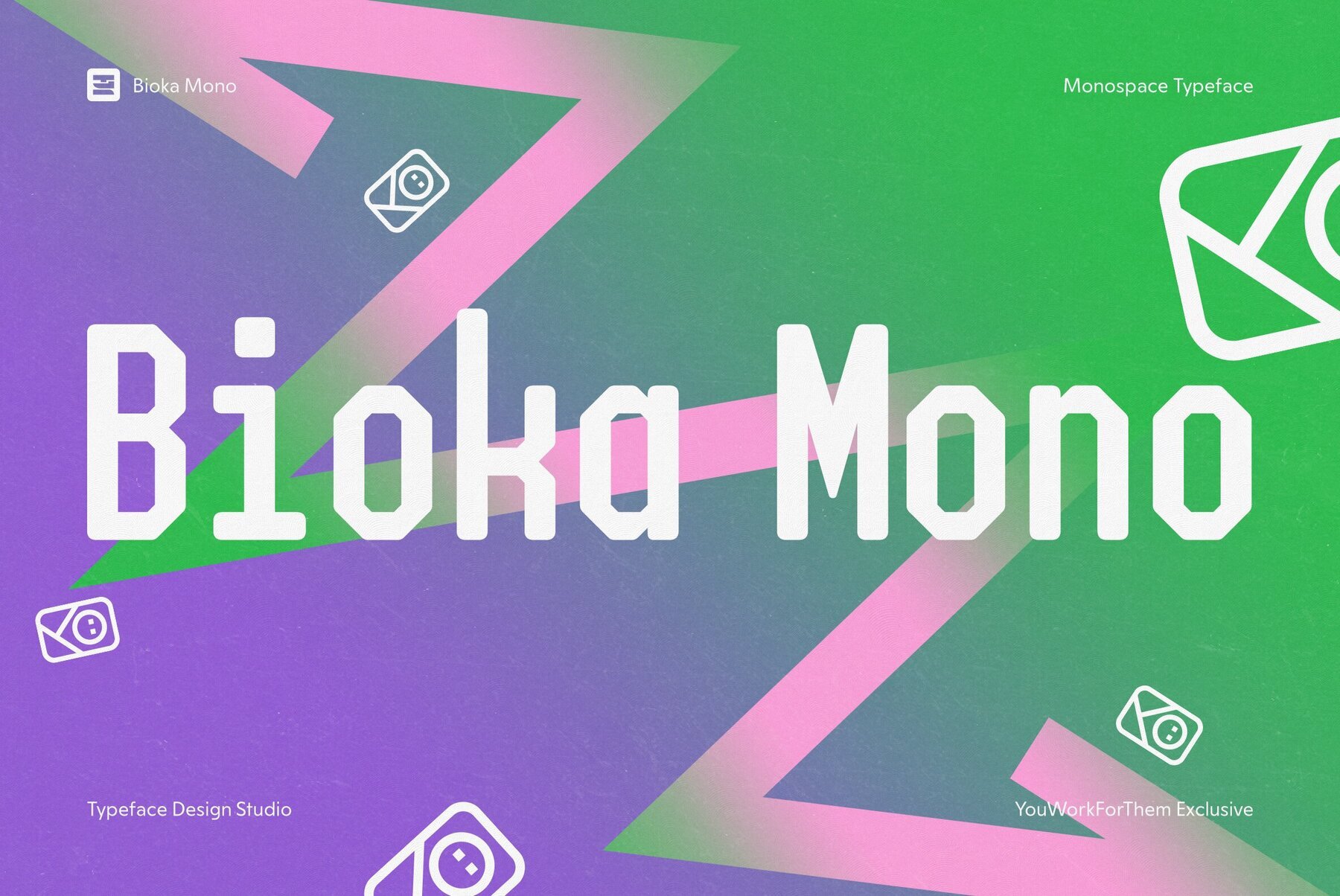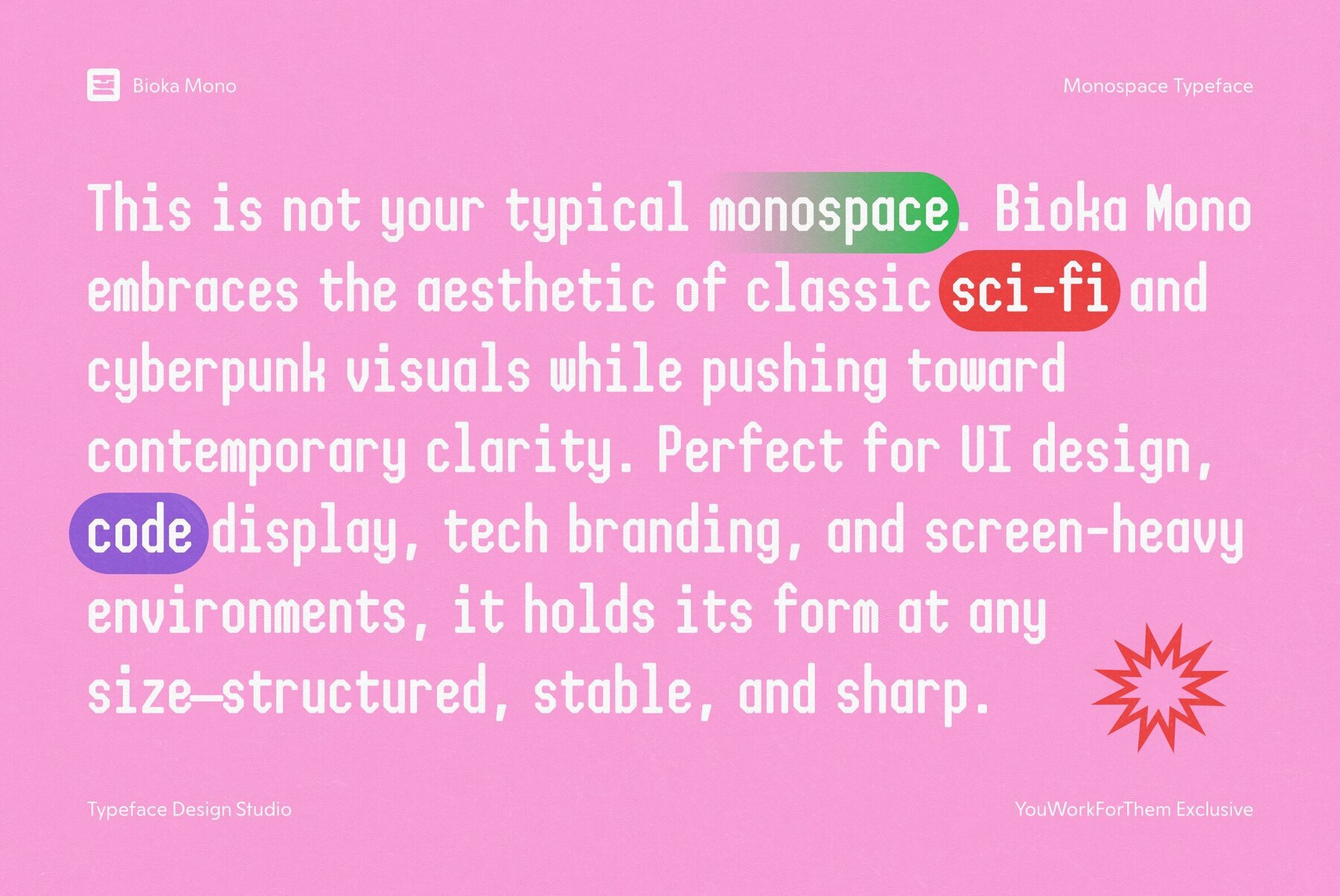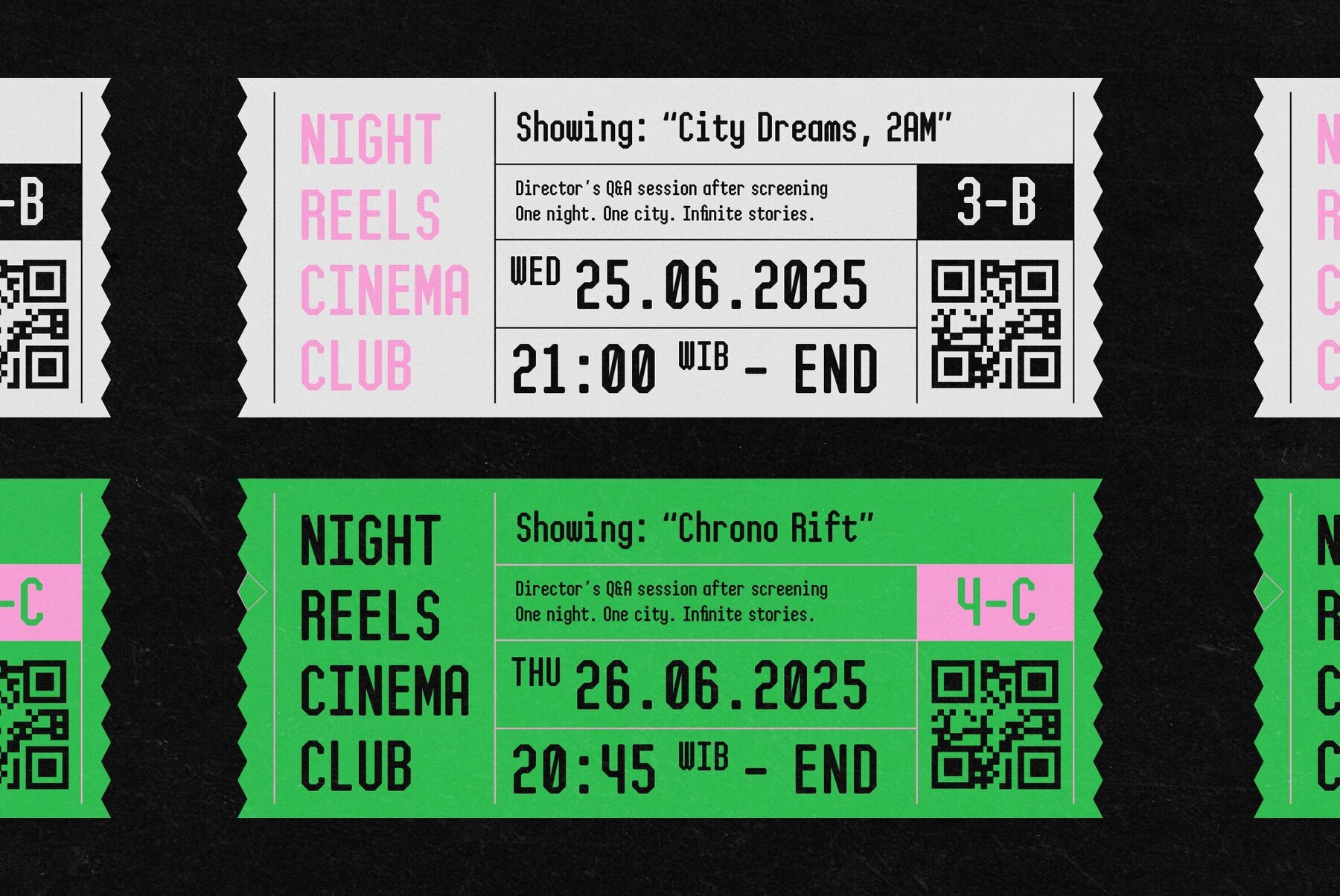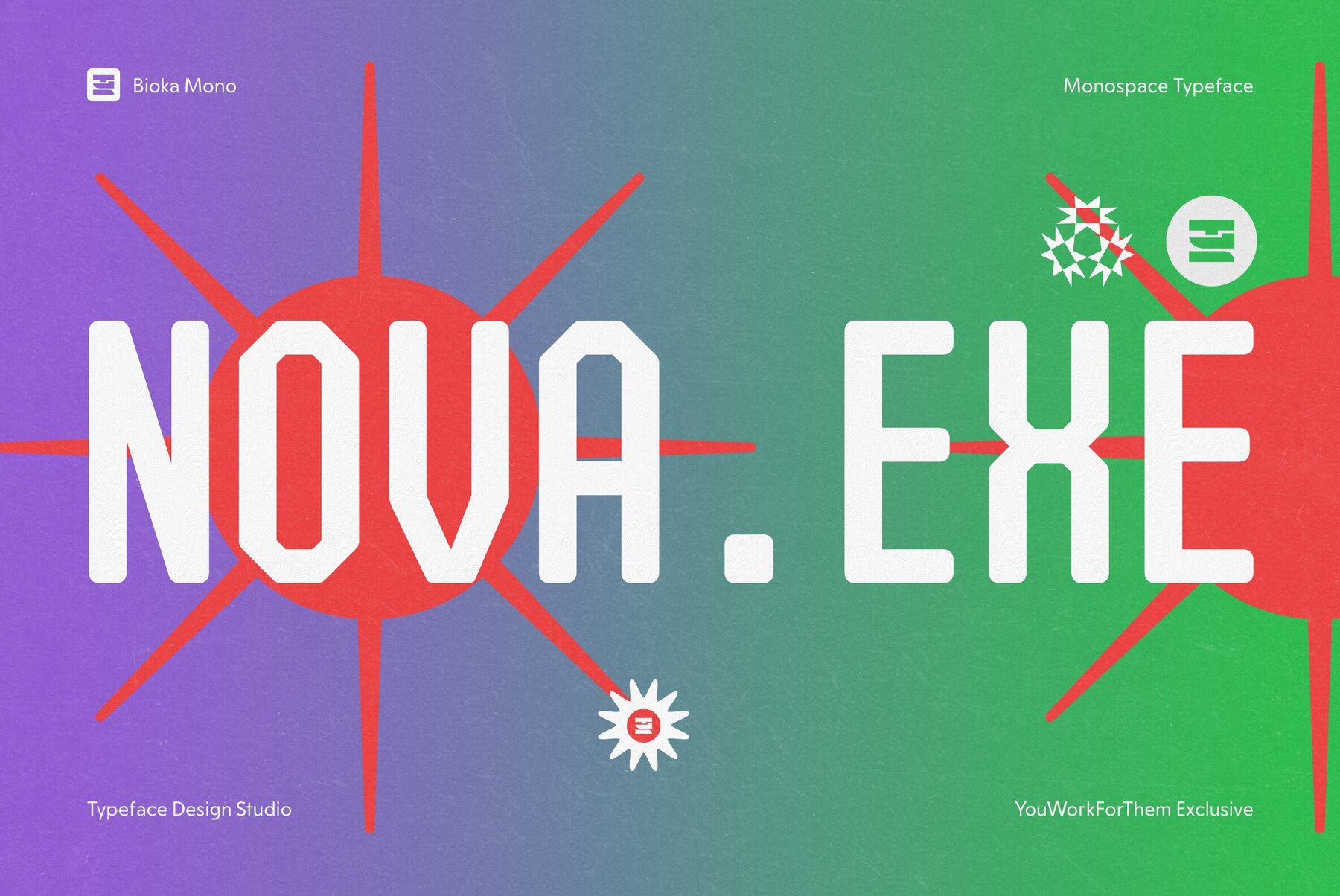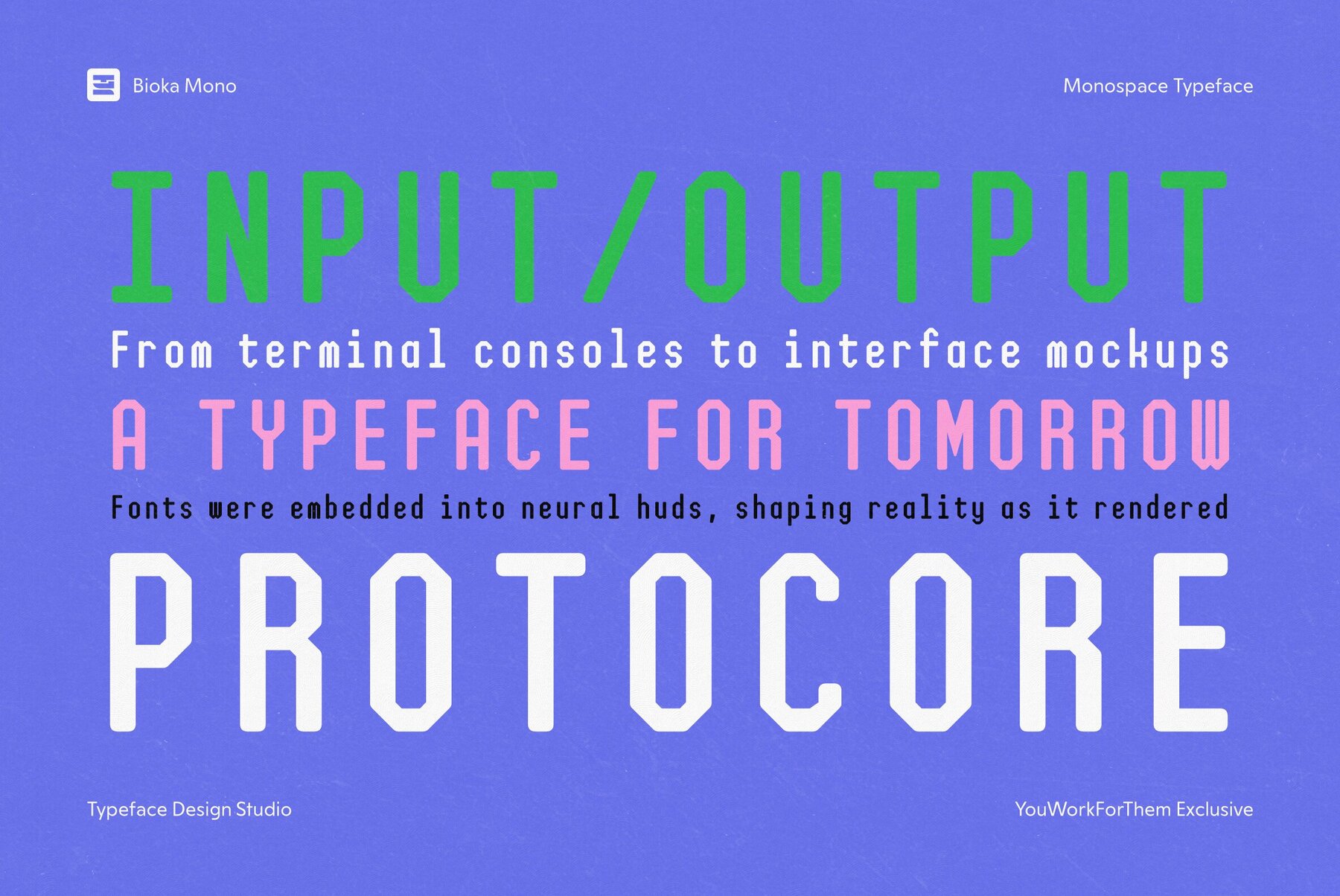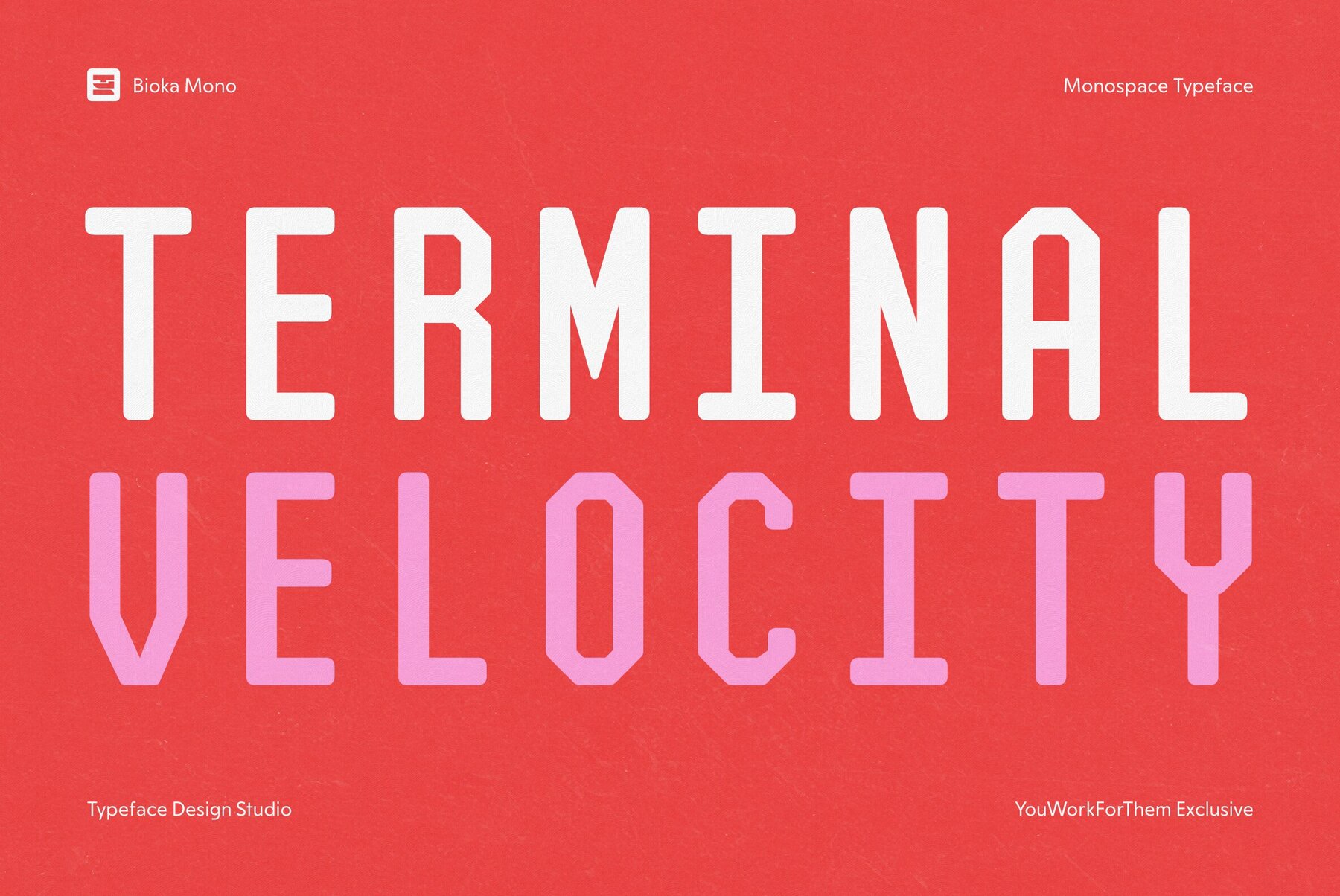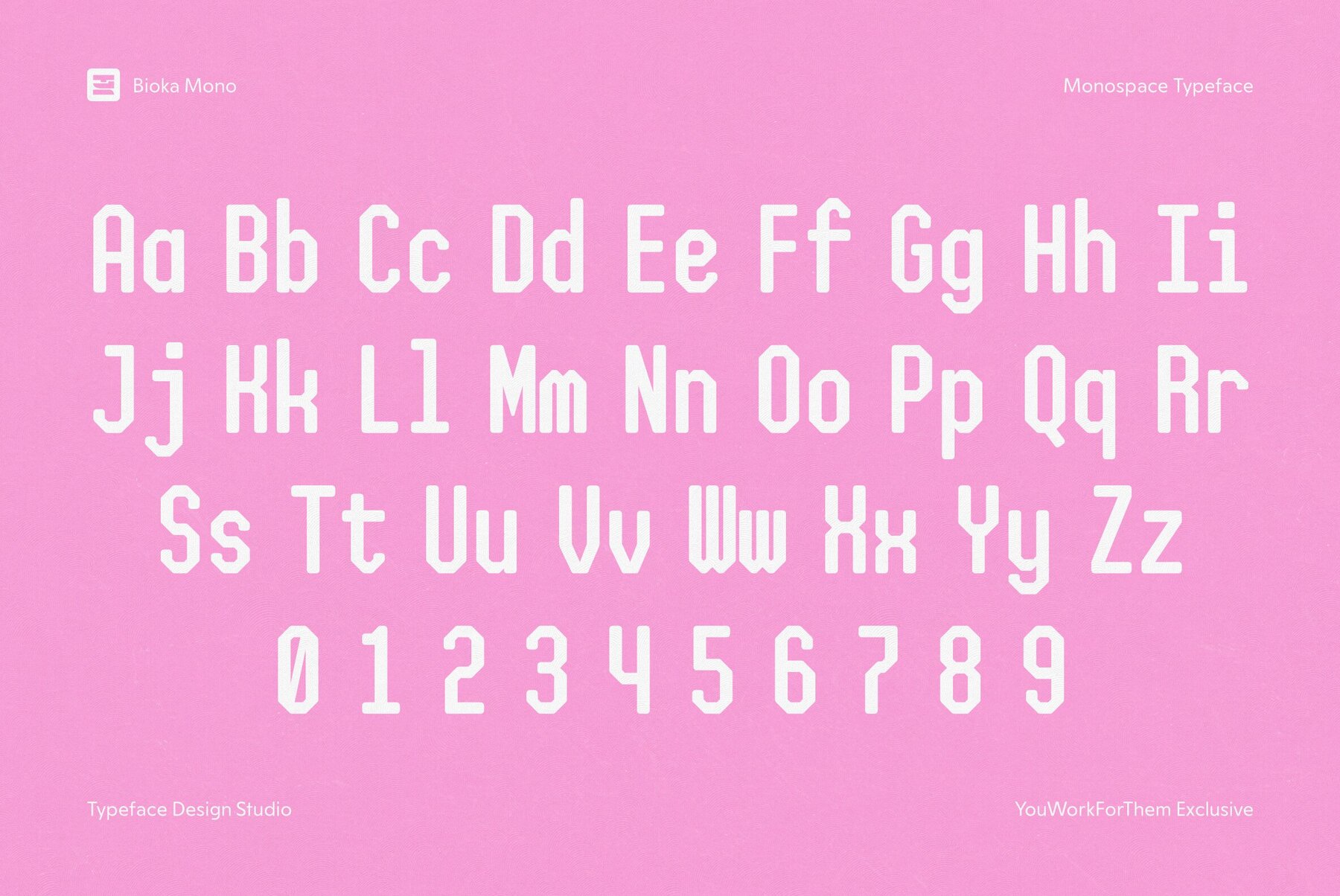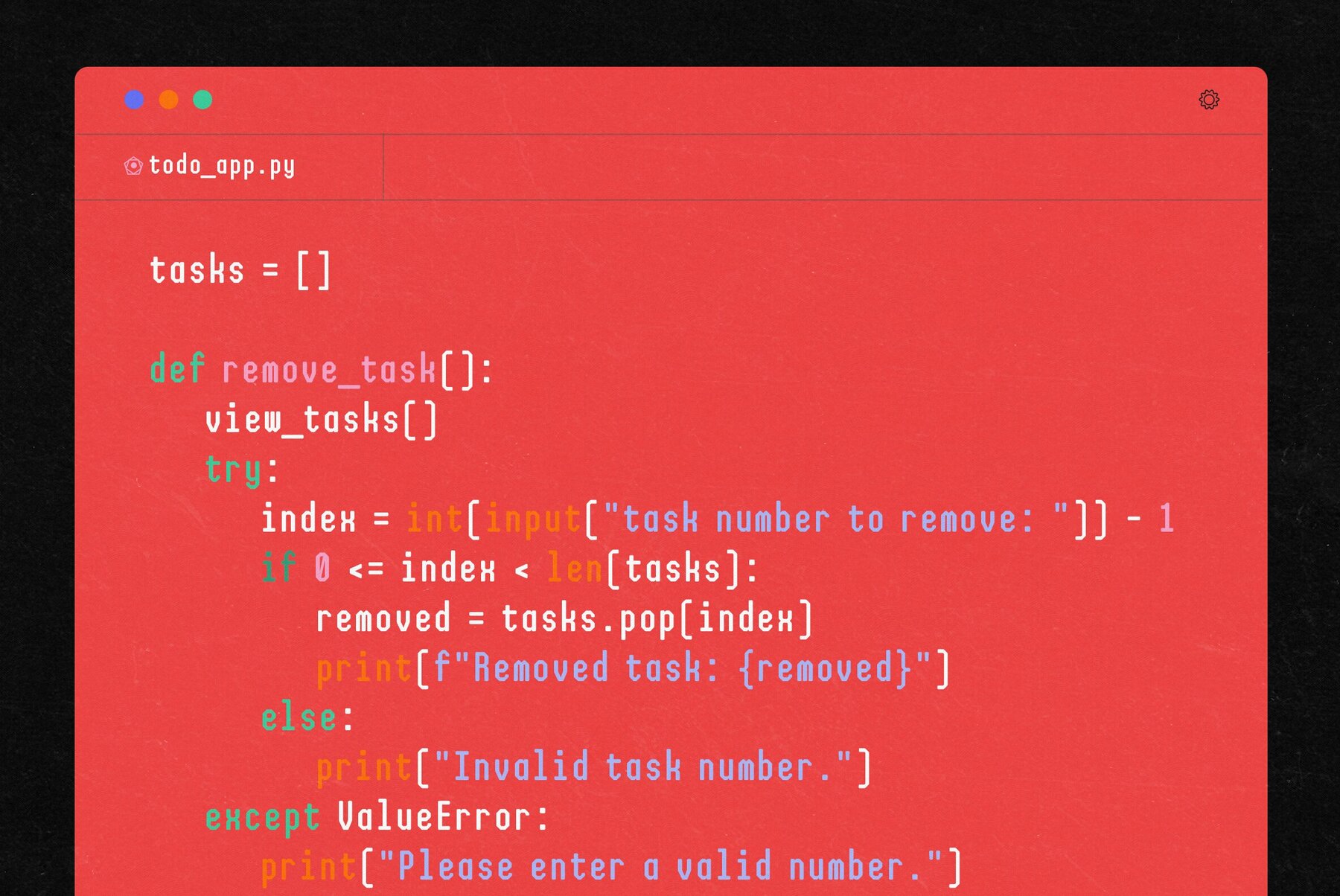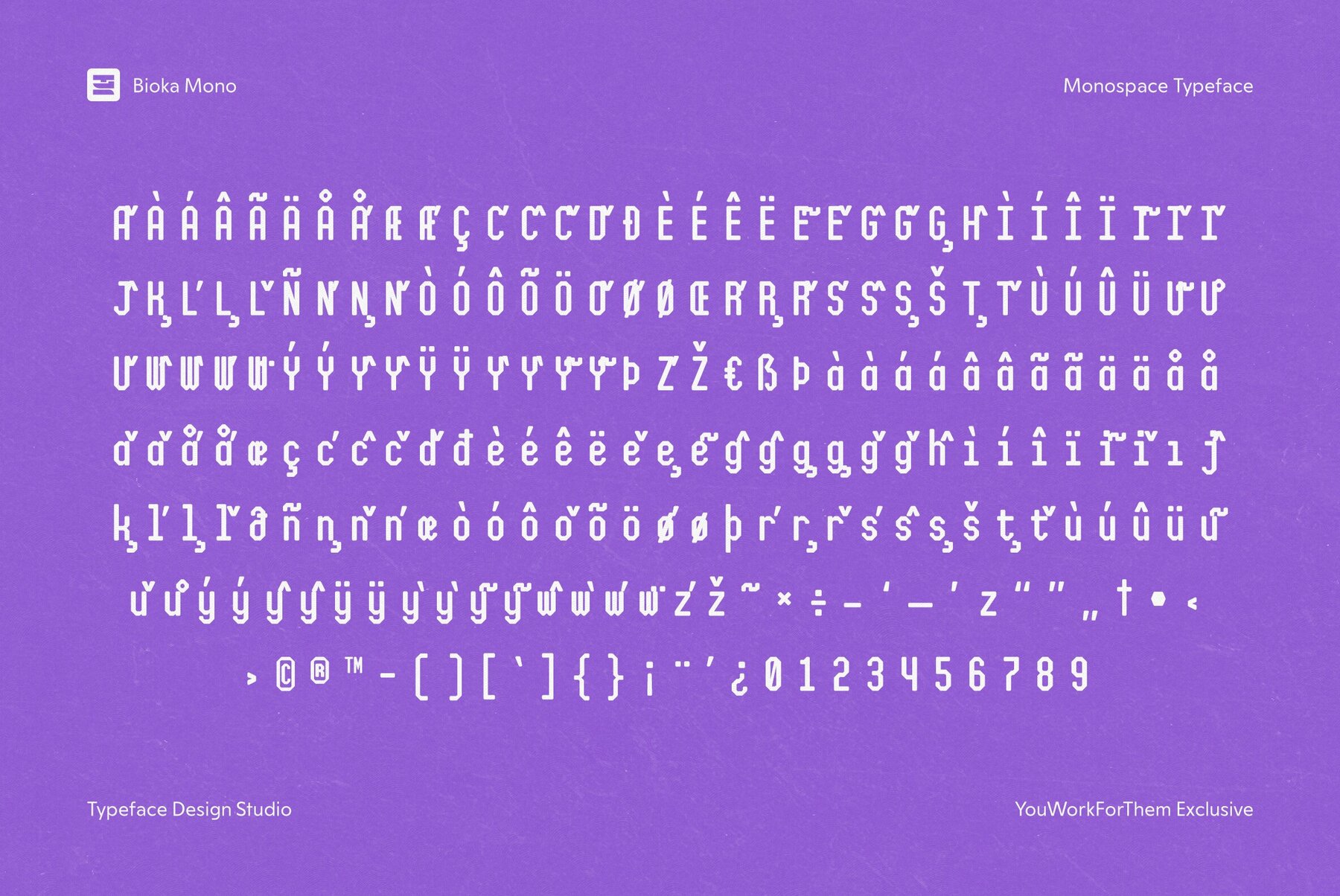
Bioka Mono Font
Bioka Mono is a futuristic monospace display font, merging the precision of monospace forms with a minimalist design aesthetic. As a geometric monospace font, it is balanced and clear, making it ideal for coding environments, technical documents, and digital products that require style and legibility. Its sharp angles and smooth curves bring a sense of future-forward design while remaining practical and easy to read. Whether designing a user interface, crafting a sci-fi visual, or developing cutting-edge software, Bioka Mono offers a typographic experience that balances modernity and timelessness. Its geometric nature gives it a strong presence, and its monospace format ensures precise character alignment, ideal for programming and technical layouts.Bioka Mono: Futuristic Monospace Display Font